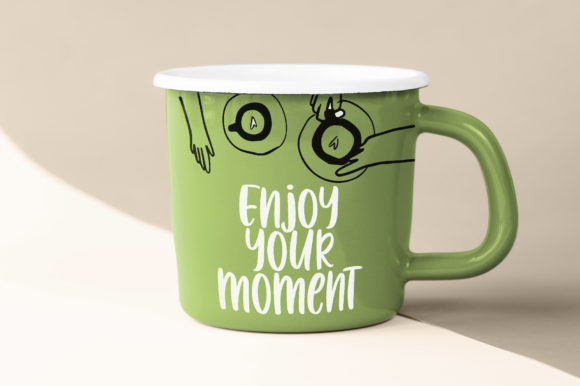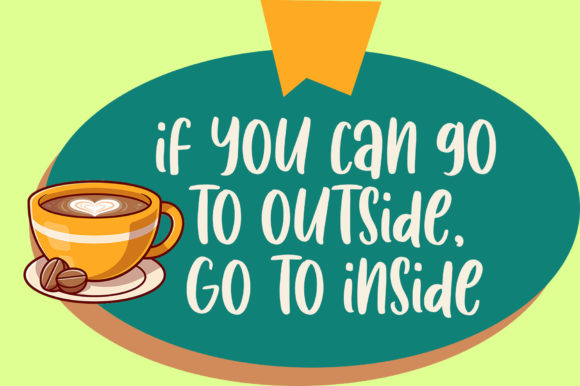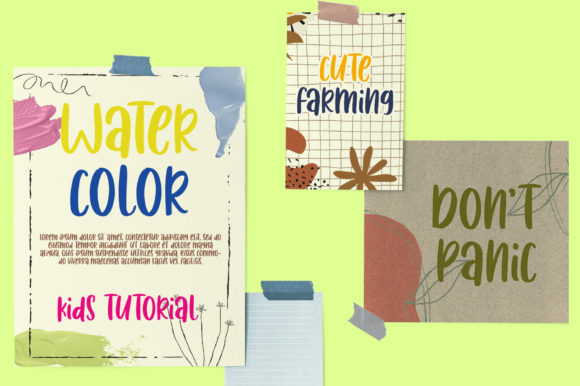
Fun Frog Font: A Cute Handwritten Display Font for Cricut & Crafts
About the Fun Frog Font
Add a touch of class to your work with the Fun Frog Font, a truly exceptional typeface. Fun Frog is a cheery and fun display font, featuring charming characters. Add this font to your most creative ideas, and notice how it makes them stand out!
Fun Frog Font excels as a display font for headlines, posters, and branding projects requiring a playful, approachable feel. Its charming character set makes it ideal for children’s products, entertainment, and brands focused on lightheartedness and fun. Avoid using it for body text or lengthy paragraphs; its whimsical nature is less effective at smaller sizes or in continuous blocks of text.
Pair Fun Frog with a clean sans-serif like Open Sans for a balanced contrast, or a classic serif like Garamond for a sophisticated yet playful combination. For a more modern feel, consider pairing it with a geometric sans-serif such as Futura. These pairings allow Fun Frog’s unique qualities to shine while ensuring readability and visual harmony.
The font projects a friendly and energetic personality, best suited for brands aiming for a lighthearted and memorable aesthetic. Its overall mood is cheerful and optimistic, not suitable for projects demanding seriousness or elegance.
Fun Frog Font Usage Examples
Fun Frog Font Example